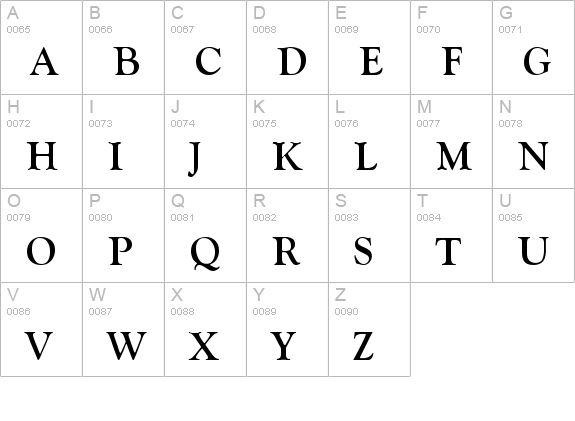
Goudy-Old-Style Font Details
Goudy Old Style is a timeless serif font that exudes elegance and sophistication. Its classic design, with its graceful serifs and subtle contrasts, makes it a perfect choice for projects that require a touch of refinement and tradition. The warm, inviting feel of Goudy Old Style is ideal for conveying a sense of heritage and authenticity. This beautiful font is available for free download at FontsMarket.com, allowing designers and creatives to easily access its charm and versatility. Whether used for branding, editorial design, or invitations, Goudy Old Style adds a touch of sophistication to any project. Its readability and distinctive character make it a favorite among typographers and designers alike. Embrace the timeless appeal of Goudy Old Style in your next project and bring a sense of classic beauty to your designs. Download it for free today at FontsMarket.com and elevate your typography game effortlessly.